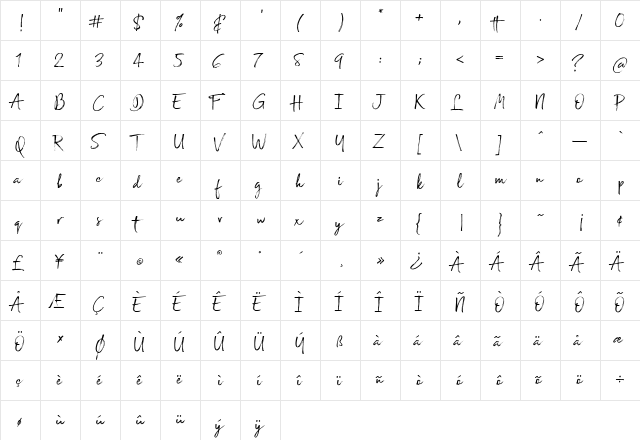
Broadcast Matter Regular
Design Context for Broadcast Matter Typeface
Broadcast Matter is a composed and adaptable typeface that performs quietly and consistently across a wide range of design contexts.